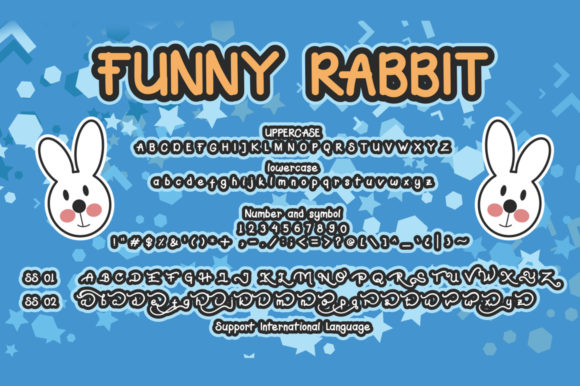
When a Simple Design Becomes a Laugh
We’ve all been there – staring at a blank page, struggling to find the perfect font to bring our design to life. But what if that perfect font could put a smile on our face and a spring in our step? For designers and creatives, finding the right font can be a game-changer, and today we’re excited to introduce you to the Funny Rabbit Font.
This charming handwritten font is more than just a pretty face – it’s a masterclass in personality and whimsy. With its beautiful alternates and playful feel, the Funny Rabbit Font is the perfect choice for designers who want to add a little humor and personality to their work. Whether you’re creating a marketing campaign, a social media post, or a logo, this font is sure to bring a smile to your face and delight your audience.
Funny Rabbit Font Key Features
- Font Family: The font family includes a range of characters, including uppercase and lowercase letters, numbers, and special characters.
- Unique Characteristics: The font features a playful, whimsical design with exaggerated letterforms and a touch of hand-drawn charm, making it perfect for children’s books, cartoons, and other creative projects.
- Font Weight: Available in regular and bold weights, allowing for flexibility in font styling and emphasis.
Funny Rabbit Font Review
Overall, I’d say the Funny Rabbit Font is a cute and playful addition to any design project. ✨ It’s perfect for adding a whimsical touch to children’s books, animated characters, or even advertisements targeting a younger audience. The font’s rounded edges and cartoonish feel make it instantly recognizable and memorable.
One of the things that really stands out about this font is its versatility. ✨ It can be used for both digital and print projects, making it a great option for designers who work in multiple mediums. Additionally, the font comes in a range of weights and styles, allowing designers to customize the look to suit their needs.
However, there are some limitations to consider. ⚠️ The font may not be suitable for projects that require a more serious or professional tone, as its playful nature may come across as immature or unprofessional. Additionally, the font may not be as readable at smaller sizes, which could be a concern for designers who need to use the font in tight spaces.
Here are some pros and cons to consider:
- ✨ Playful and whimsical design
- ✨ Versatile and suitable for multiple mediums
- ✨ Range of weights and styles available
- ⚠️ May not be suitable for serious or professional projects
- ⚠️ May not be readable at smaller sizes
Overall, I’d give the Funny Rabbit Font 3.5 out of 5 stars. While it’s a fun and versatile font, its limitations may make it less suitable for certain projects. However, for designers looking to add a playful touch to their designs, it’s definitely worth considering.
Practical Application Guide: Funny Rabbit Font
The Funny Rabbit Font is ideal for use in playful and whimsical designs, such as:
- Cartoon and comic book-style illustrations.
- Humorous and lighthearted blog posts and social media graphics.
To get the most out of the Funny Rabbit Font, experiment with different font sizes, colors, and styles to create a unique and eye-catching look.
Alternatives to Funny Rabbit Font for Designers
Pacifico is a beautiful, cursive font that exudes a sense of relaxation and tranquility. It’s suitable for use in branding, packaging, and advertising materials where a touch of sophistication is required. Compared to Funny Rabbit Font, Pacifico has a more polished and refined look, making it a great choice for designs that need a bit of elegance.